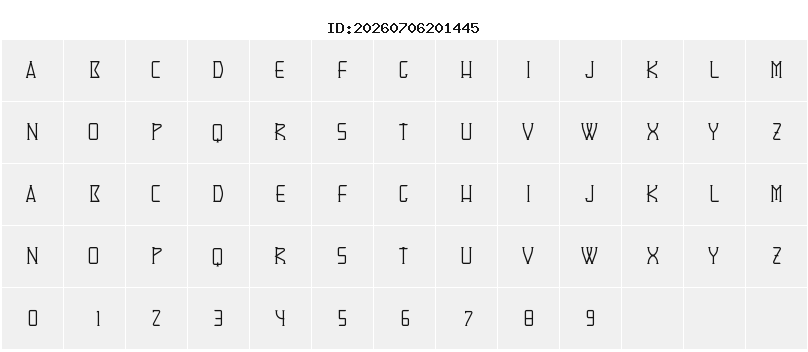
Denominator Preview
• Font Name: Denominator
• Font ID: Denominator:Version 1.00
• Full Font Name: Denominator
• Version: Version 1.00 November 25, 2016, initial release
• PostScript Name: Denominator
• Character Count: 169
• Designer: Max Infeld
• Description: Created by Xerographer Studios in Chico, California.
About Denominator.ttf
Denominator.ttf is a modern, elegant sans-serif font designed for ultimate readability and visual harmony. Perfect for branding, headlines, web design, and print materials.